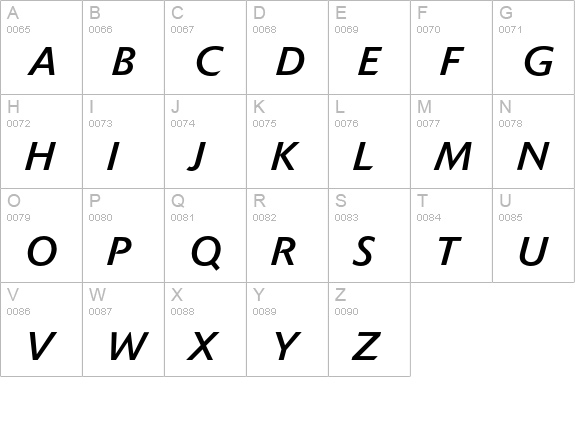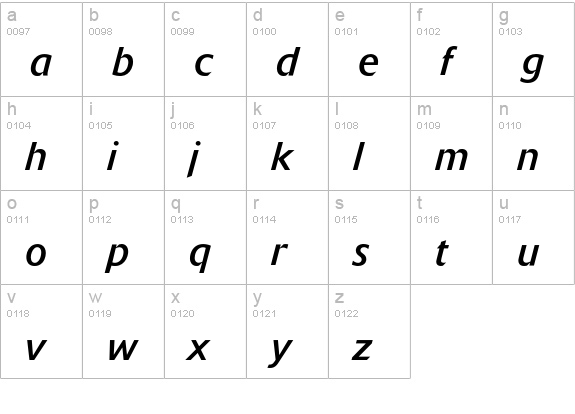
Delta Jaeger BQ Book Italic is a comfortable, highly readable, italic variant in the Delta typeface family \xE2\x80\x94 well suited to long-form body text, articles, and editorial content.
Delta Jaeger BQ Book Italic is a sophisticated and elegant font that exudes a sense of modernity and professionalism. Its sleek and stylish italics add a touch of flair to any design project, making it perfect for branding, advertising, and editorial purposes. The strong and clean lines of this font make it highly versatile and easy to read, ensuring that your message is conveyed effectively. The best part is that Delta Jaeger BQ Book Italic is available for free download at FontsMarket.com. This means you can access this high-quality font without any cost, making it a valuable addition to your font library. Whether you are a designer, marketer, or content creator, Delta Jaeger BQ Book Italic is a must-have font that will elevate your projects to the next level. Download it now and start creating stunning designs with ease.